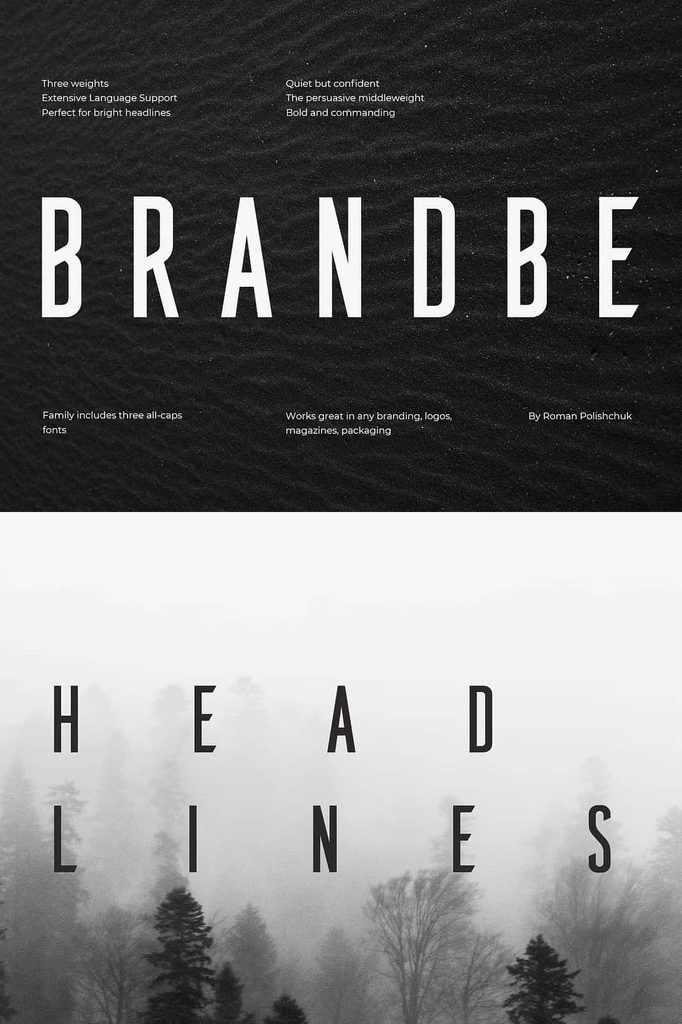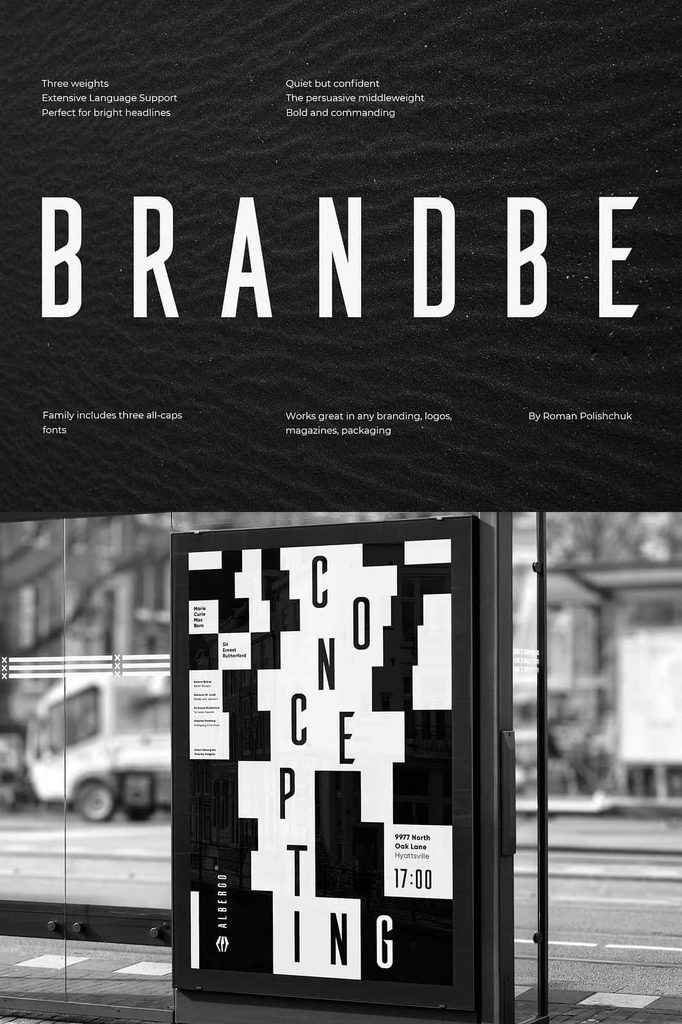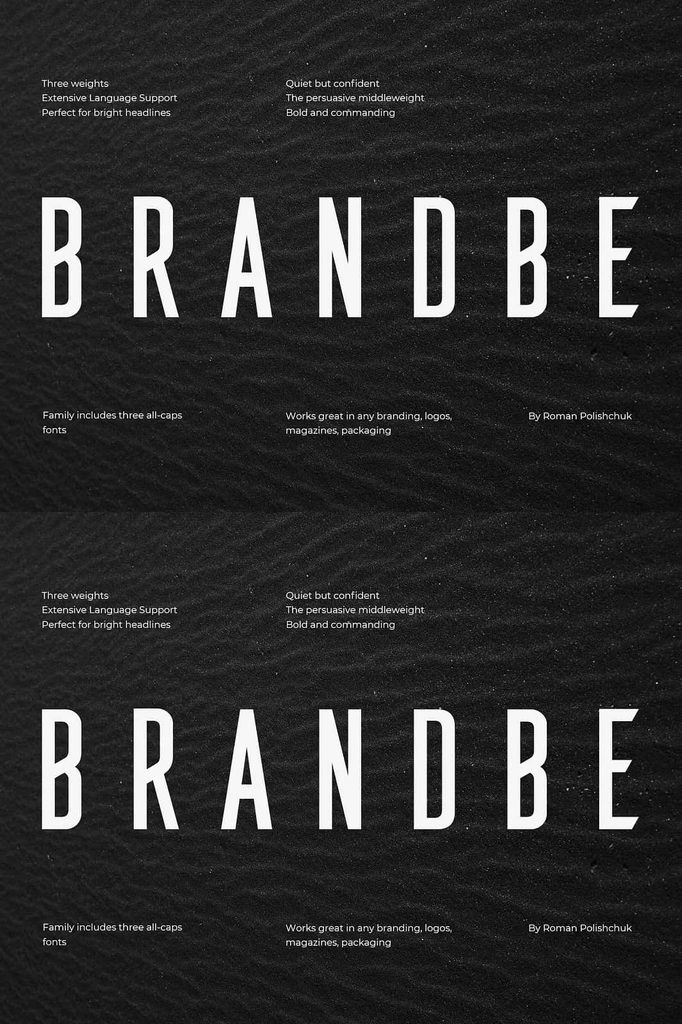
Brandbe Font Family – Clean and Compressed Typeface for Modern Design
Brandbe is a clean and compressed font family designed to give modern typography a sharp, confident, and highly distinctive appearance. With its compact proportions and crisp glyphs, Brandbe creates strong visual impact without taking up unnecessary space. Each style performs exceptionally well in large headlines, making the family an excellent choice for designers who need typography that immediately captures attention.
Built for contemporary visual communication, Brandbe combines a streamlined structure with precise letterforms. Its compressed design helps you create powerful compositions while maintaining a clean and organized appearance. Whether you are developing a brand identity, designing a magazine cover, creating product packaging, or producing promotional graphics, Brandbe gives your typography a professional and modern foundation.
A Clean and Compressed Font Family
Brandbe focuses on clarity, structure, and visual strength. Its compressed proportions allow designers to fit substantial words into limited spaces while preserving the impact of large display typography. This characteristic makes the font especially useful for headlines, titles, posters, banners, advertising layouts, and other applications where typography needs to occupy a prominent position.
The clean construction also allows Brandbe to adapt to different design styles. Use it in minimalist compositions for a refined contemporary appearance, or combine it with bold graphics and imagery to create a more energetic visual identity. Its sharp glyphs provide a distinctive character that helps text look polished and intentional.
Brandbe performs particularly well when displayed at larger sizes. Enlarging the characters reveals the precision of the glyph construction and allows the compressed forms to become an important graphic element within the overall composition.
Sharp Glyphs for Strong Headlines
One of Brandbe’s defining qualities is its sharp and carefully structured glyph design. The crisp letterforms create a strong presence, allowing headlines to communicate with confidence. When you need a typeface that can establish hierarchy and command attention, Brandbe provides the visual weight and structure required for effective display typography.
Create Powerful Display Typography
Use Brandbe for large headlines, campaign titles, magazine covers, promotional messages, and advertising statements. Its compressed structure gives you more control over horizontal space while allowing the text to remain visually prominent.
For maximum impact, experiment with different font sizes, tracking, alignment, and line breaks. The narrow proportions can create dramatic stacked headlines and compact typographic compositions. You can also combine Brandbe with photography, geometric shapes, or illustrations to build strong contemporary layouts.
Ideal for Branding and Logo Design
Brandbe offers an effective solution for branding projects that require clean, bold, and recognizable typography. Its compressed letterforms can help create distinctive wordmarks that feel modern and professional. The sharp glyphs also give brand names a clear visual identity that can work across both digital and printed materials.
Use Brandbe to develop logos, wordmarks, brand headlines, campaign graphics, signage, business materials, and promotional assets. Its compact structure can become especially useful when a brand name contains multiple characters and needs to fit into a controlled horizontal space.
For a complete identity system, use Brandbe for major headlines and combine it with a simpler supporting typeface for secondary information. This creates contrast while allowing the Brandbe typography to establish the brand’s visual personality.
Excellent for Magazine and Editorial Design
Brandbe works naturally in editorial environments where strong headlines play an important role. Its compressed proportions can help magazine designers create striking covers while preserving valuable space for photography, captions, article titles, and other visual elements.
Use Brandbe for magazine covers, feature headlines, section titles, article openers, promotional pages, and editorial campaigns. Its sharp letterforms can complement both minimalist layouts and image-heavy compositions.
Pair the font with a readable serif or sans serif typeface for body copy. This approach allows Brandbe to create visual impact in headlines while the supporting font maintains comfortable reading across longer passages.
Powerful Typography for Packaging
Packaging design often requires typography to communicate product information within a limited area. Brandbe’s compressed structure helps designers make efficient use of available space while maintaining a strong visual presence.
Use Brandbe for product names, packaging headlines, labels, promotional statements, collection names, and other prominent text. Its clean appearance can help products achieve a contemporary and premium presentation.
Whether you are building a complete brand identity, designing a striking magazine cover, creating modern packaging, or developing a bold promotional campaign, Brandbe can give your typography the clean structure and visual impact needed to make your design stand out.